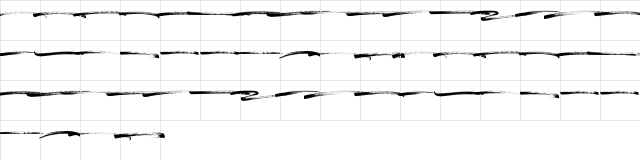
Sophiet Swash Regular
Design Context for Sophiet Swash Typeface
Sophiet Swash flows with the natural rhythm of handwritten lettering, making it ideal for designs that call for warmth and personal expression.
Font Pairing: Combine Sophiet Swash with a simple geometric sans for maximum contrast — the tension between flowing curves and clean structure is a classic typographic pairing.
Pro Tip: Use Sophiet Swash for short runs of text — names, titles, or taglines. Extended body copy in script faces tires the eye quickly.